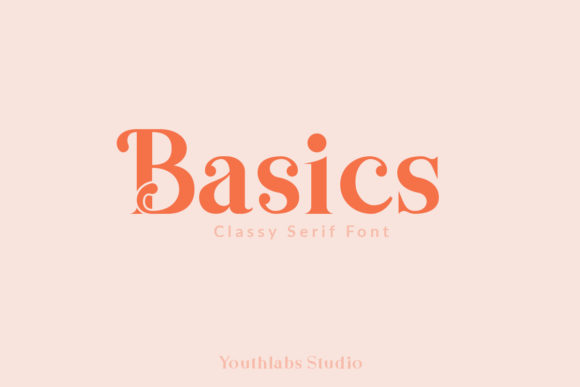
**Basics: The Timeless Font for Unforgettable Impressions**
Immerse yourself in the charm of Basics, a captivating serif font that evokes a sense of nostalgia and elegance. Each meticulously crafted letter exudes a playful spirit, adorned with graceful swashes that will add a touch of whimsy to your creative endeavors.
With Basics, you'll discover a world of possibilities. Whether you're crafting exquisite wedding invitations, designing eye-catching titles, or creating unforgettable logos, this versatile font will elevate your creations to new heights.
**Embrace the Timeless Allure of Basics**
Basics is more than just a font; it's an embodiment of timeless beauty. Its classic serif design brings a touch of sophistication to any project, ensuring that your words make a lasting impression. Imagine the joy of penning heartfelt letters with Basics, where every stroke whispers a message of love and nostalgia.
**Discover the Enchanting Versatility of Basics**
Basics is the epitome of versatility, adapting seamlessly to a myriad of design styles. Its playful nature lends itself perfectly to invitations, adding a touch of whimsy to your special occasion. Its elegance shines in titles, commanding attention with its graceful curves and intricate details. And when it comes to logos, Basics empowers you to create a distinctive brand identity that exudes both professionalism and charm.
**Unleash Your Creativity with Basics**
Basics is the perfect canvas for your imagination. With its playful spirit, you can create designs that spark joy and ignite creativity. Let your imagination soar as you explore the endless possibilities that await you with Basics. From whimsical posters to elegant business cards, this versatile font will turn your visions into reality.
**Elevate Your Designs with Basics**
Basics is the key to unlocking design excellence. Its refined beauty and meticulous craftsmanship will elevate your creations, ensuring they leave an unforgettable mark. With Basics, you'll discover a world where words dance with grace and elegance, capturing the hearts of all who behold them.